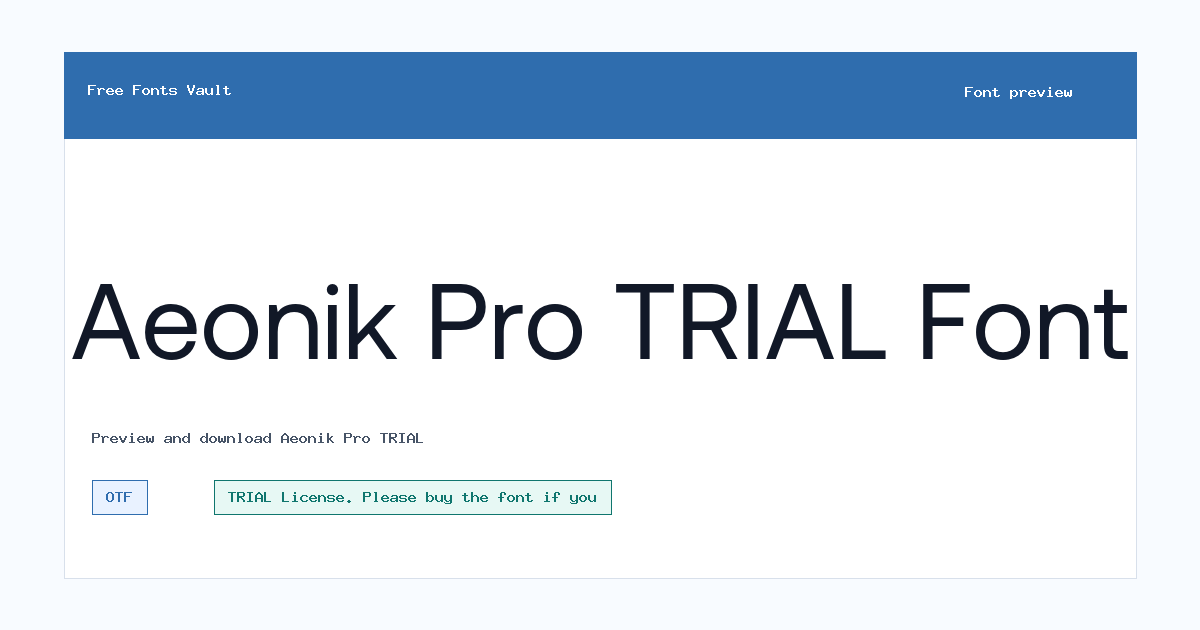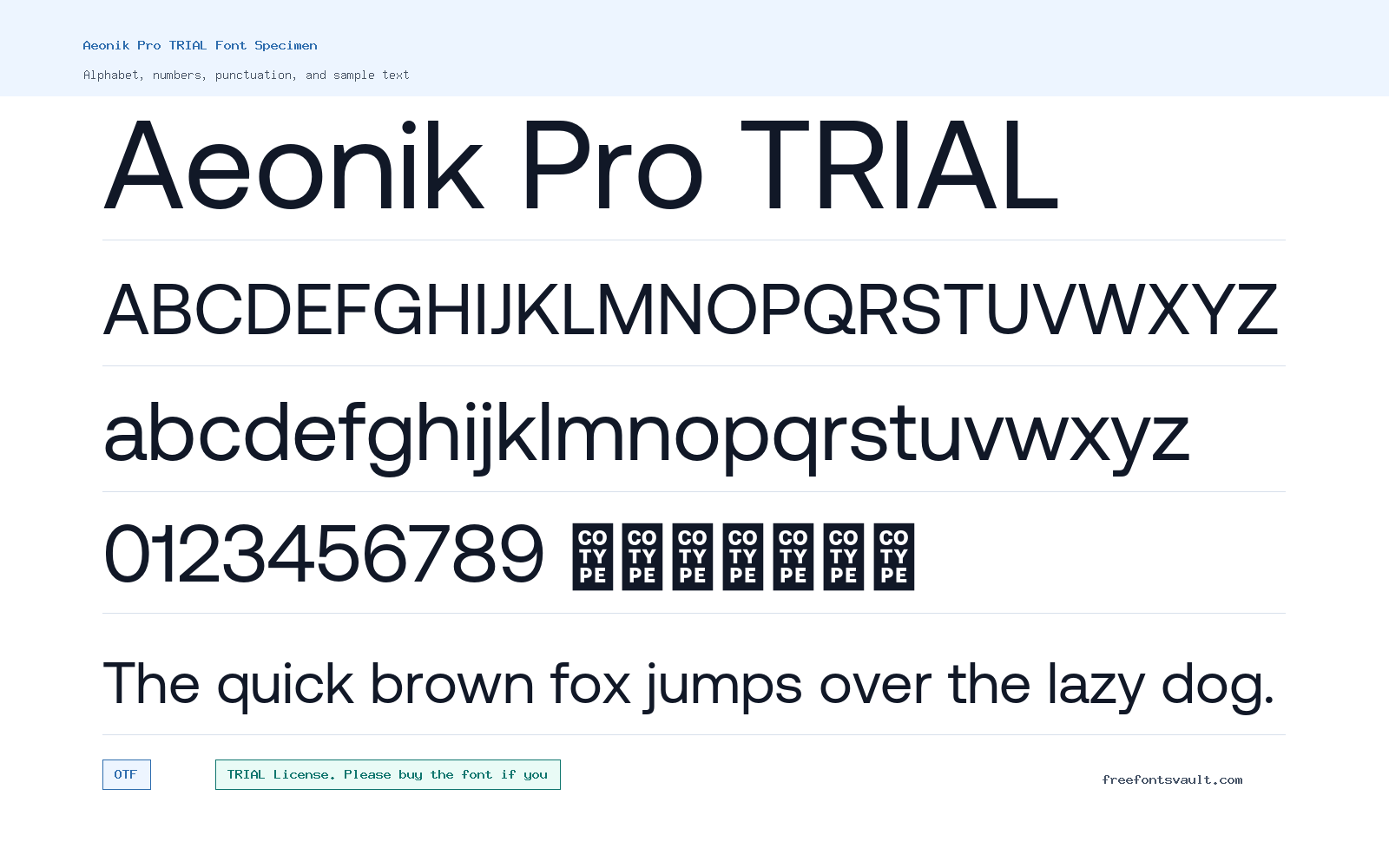
Aeonik Pro TRIAL
- Designer Joe Leadbeater and Mark Bloom
- Foundry CoType Foundry
Aeonik Pro TRIAL font.
Aeonik Pro TRIAL is a trial version of Aeonik, a modern sans serif from CoType Foundry. It gives visitors a practical way to test the family’s Light, Regular, and Bold styles before buying a full license.
About Aeonik Pro TRIAL
Aeonik is described by CoType Foundry as a neo-grotesque type family with a geometric structure. In use, that means it should feel clean and orderly without becoming too decorative. The trial files here cover useful everyday weights: Light, Regular, and Bold, each with a matching italic. That makes it easier to test a simple hierarchy, such as a light subheading, regular paragraph text, and a bold title.
Use the preview box to check the details that matter for your project: spacing in short headlines, numeral clarity, uppercase rhythm, and how the italics look beside the upright styles. Aeonik Pro TRIAL is a good candidate to test for branding drafts, interface mockups, editorial layouts, presentation titles, and clean website typography. For long paragraphs, preview your own text first so you can judge size, line height, and contrast before committing to a layout.
- Sans serif design with neo-grotesque and geometric traits described by CoType Foundry
- Weights suitable for basic typographic hierarchy in mockups and previews
- Designed by Joe Leadbeater and Mark Bloom for CoType Foundry
- Branding concepts and logo roughs
- Website and app interface mockups
- Editorial headlines and simple page layouts
- Presentation titles, posters, and clean display text
- Testing weight contrast before purchasing the full family
Aeonik was designed by Joe Leadbeater and Mark Bloom for CoType Foundry.
What styles are included?
The trial set includes Light, Regular, and Bold in upright styles, plus Light Italic, Regular Italic, and Bold Italic.
Who designed Aeonik?
Aeonik was designed by Joe Leadbeater and Mark Bloom for CoType Foundry.
Test headlines, short paragraphs, numbers, uppercase text, and italics. Also compare Light, Regular, and Bold to see whether the contrast works for your layout.